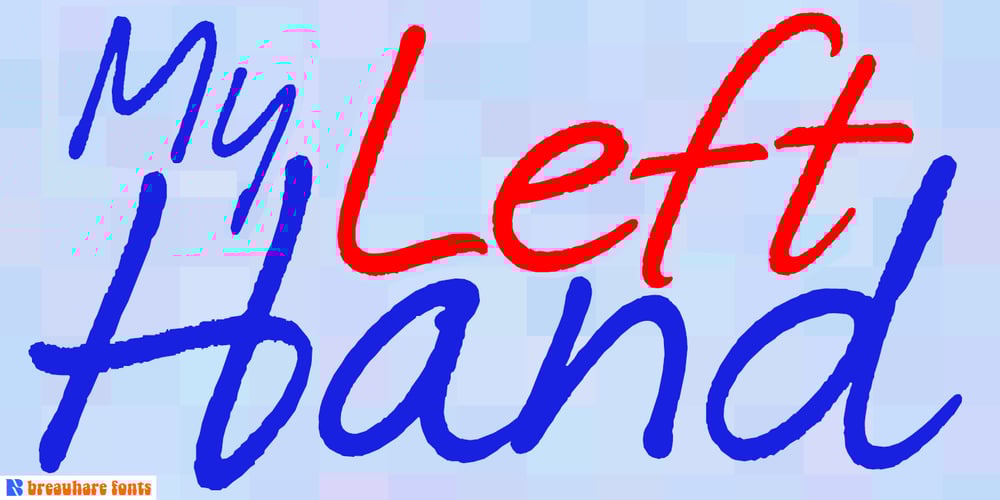
My Left Hand Font Family was designed by Harry Warren and published by Breauhare. My Left Hand contains 1 styles and family package options. My Left Hand is exactly what it is…well, not my actual flesh-and-blood left hand but my actual handwriting, and I know that it really is My Left Hand because people tell me all the time, “You’re left-handed!” When I hear people say that, it always reassures me that I am left-handed, in case I am ever doubtful about it. Five of the last eight U.S. presidents have been left-handed, so we’re in good company, no matter which political party you’re a fan of. This font has an appealing rough look at large sizes, but at smaller sizes it looks smooth as silk. Digitized by John Bomparte.